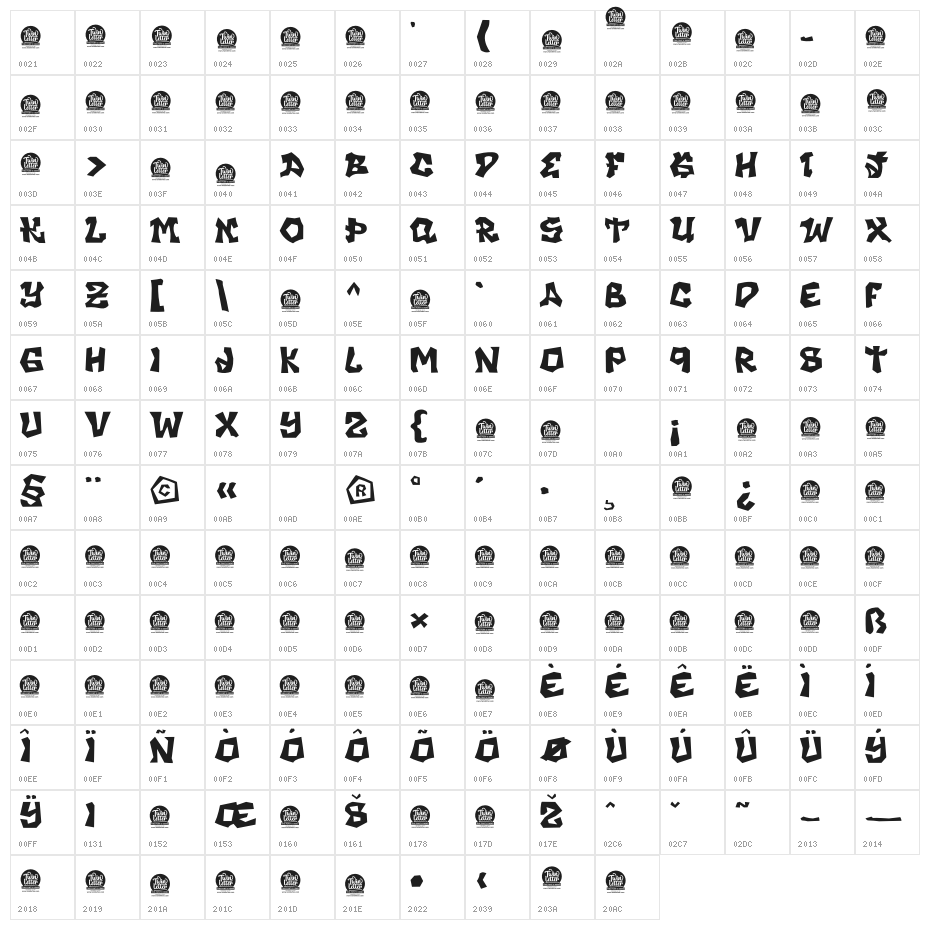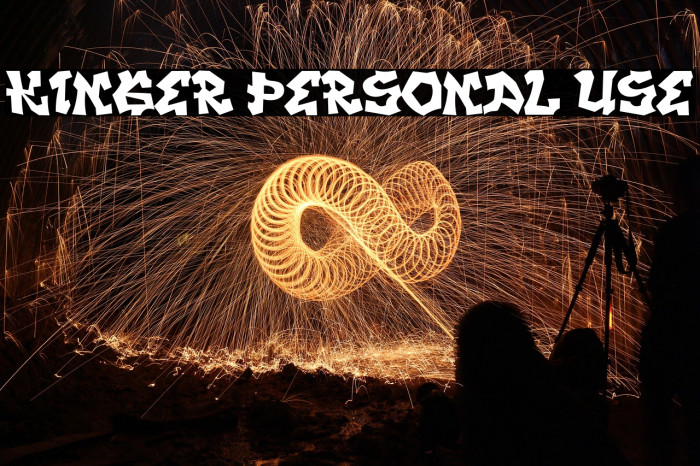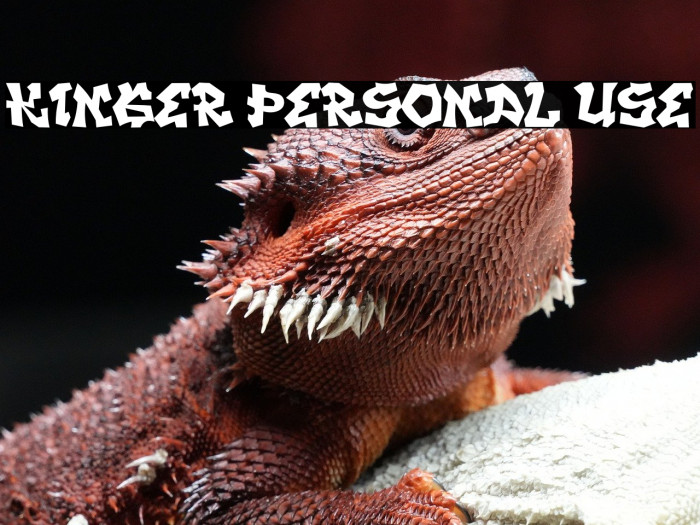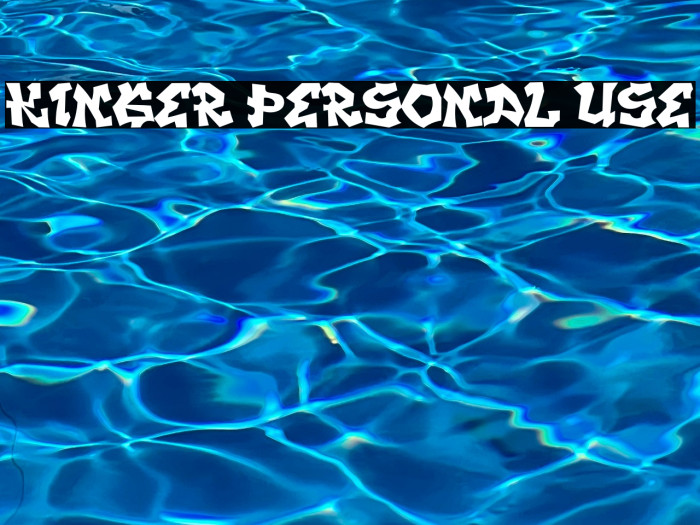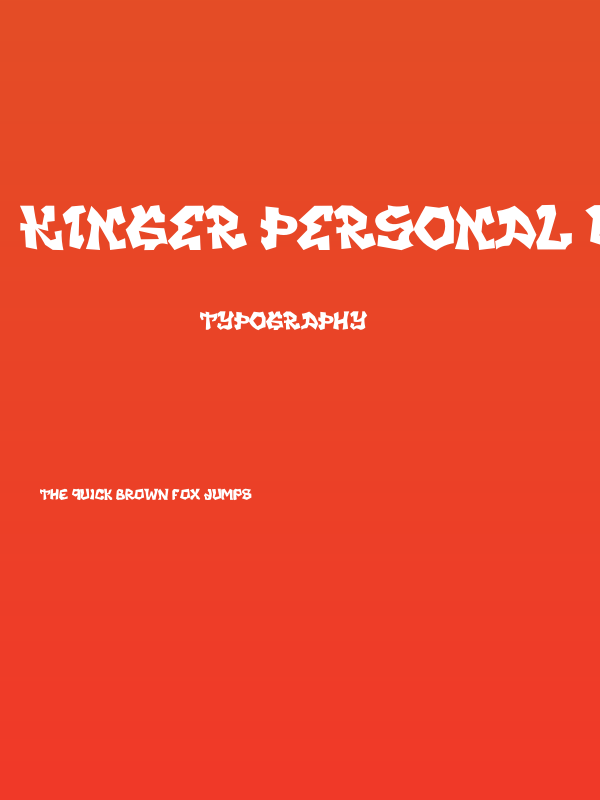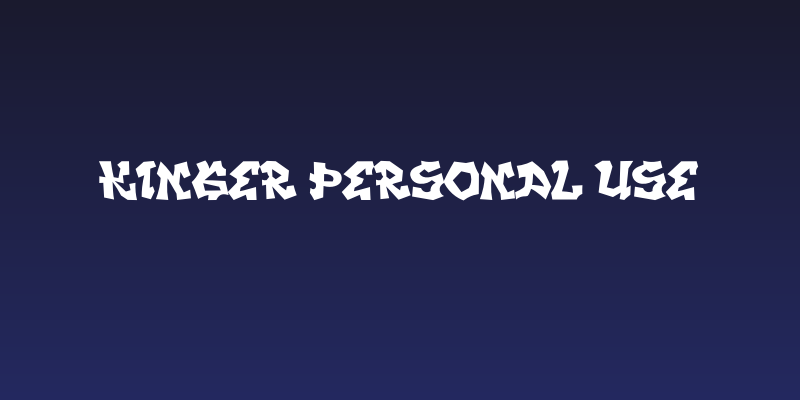
KINGER PERSONAL USE Font
KINGER PERSONAL USE Description
This font exhibits a bold and dynamic style with sharp, angular edges and a slightly distorted appearance, giving it a unique and edgy look. The characters are designed with a strong presence, making them stand out prominently. The uppercase letters are particularly striking, with a consistent height and width that maintain a cohesive look across the alphabet. The font's design is reminiscent of graffiti or street art, with a rebellious and energetic vibe. It is well-suited for projects that require a bold statement or a modern, urban aesthetic.
| Overall Style | Modern, Urban, Edgy |
| Proposed Projects | Ideal for streetwear branding, music album covers, event posters, and urban-themed designs. |